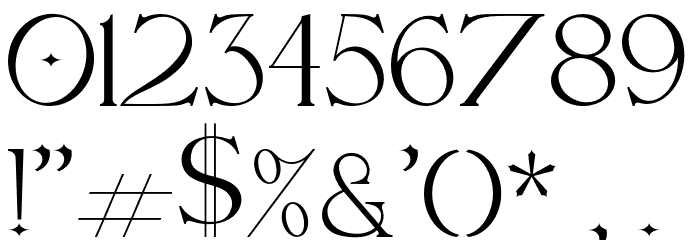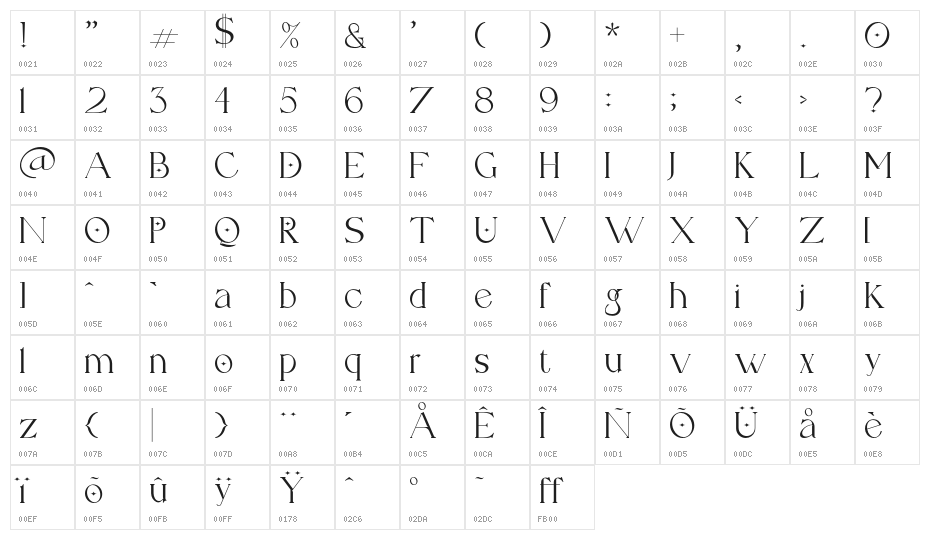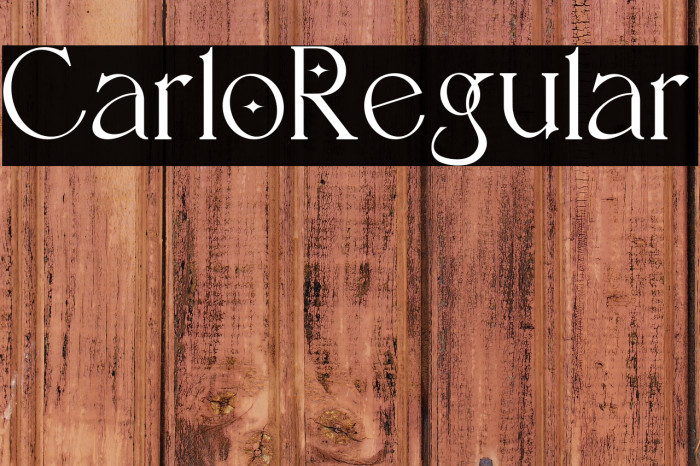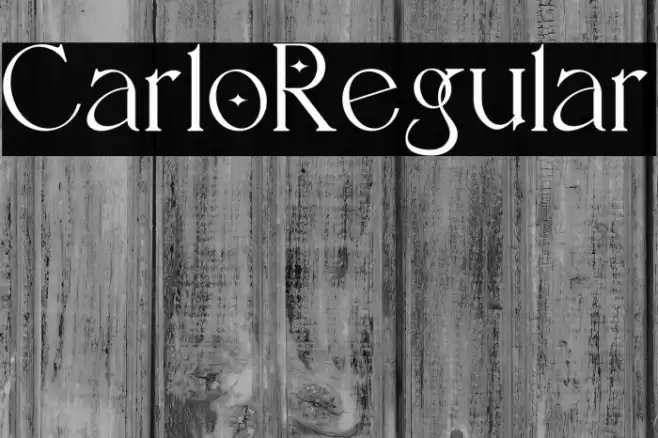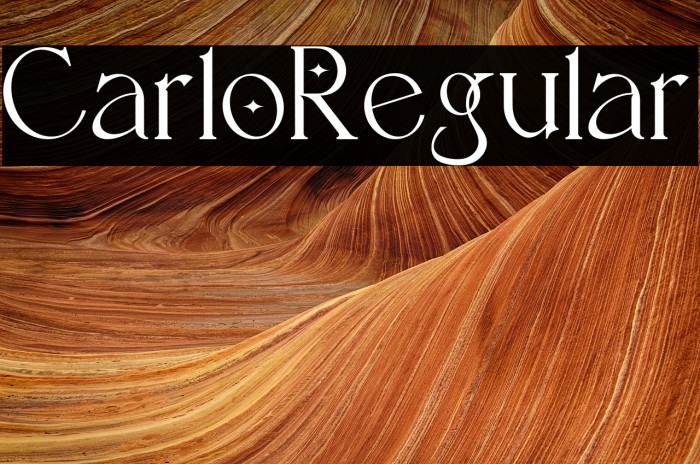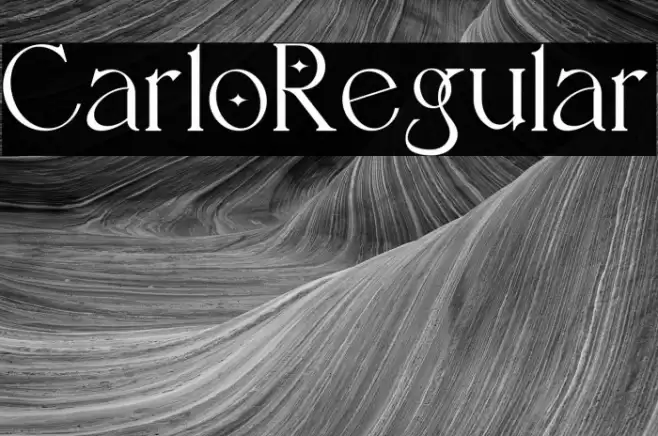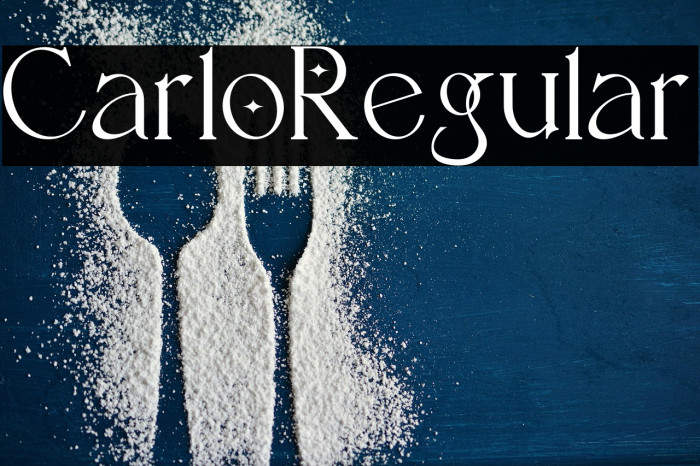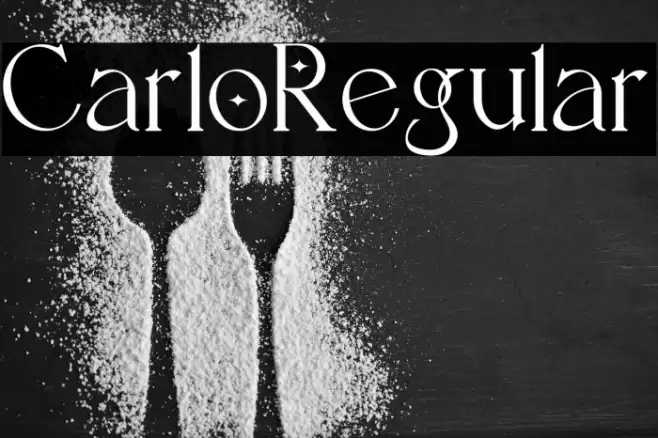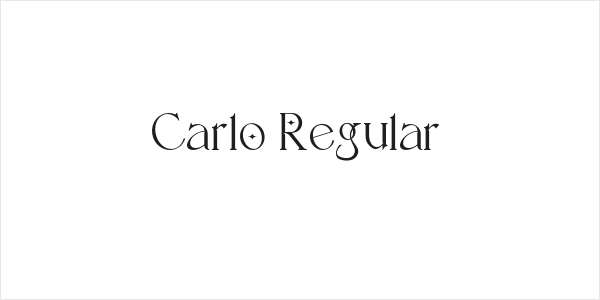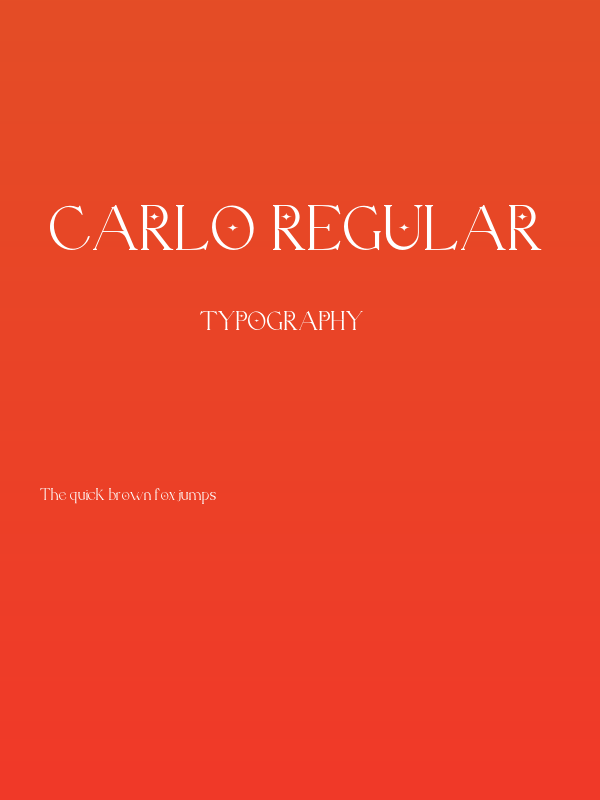
Carlo-Regular Font
Carlo-Regular Description
This font features a unique blend of classic serif elements with modern decorative touches. Each character is adorned with a distinct circular cutout, adding a playful yet sophisticated flair. The uppercase letters are tall and elegant, while the lowercase letters maintain a consistent style, ensuring readability. The numerals are equally stylish, with a consistent design that complements the alphabet. Special characters are thoughtfully crafted, maintaining the overall aesthetic. This font's distinctive style makes it ideal for creative projects that require a touch of elegance and uniqueness.
| Proposed Projects | Ideal for branding, editorial design, invitations, and artistic posters. |